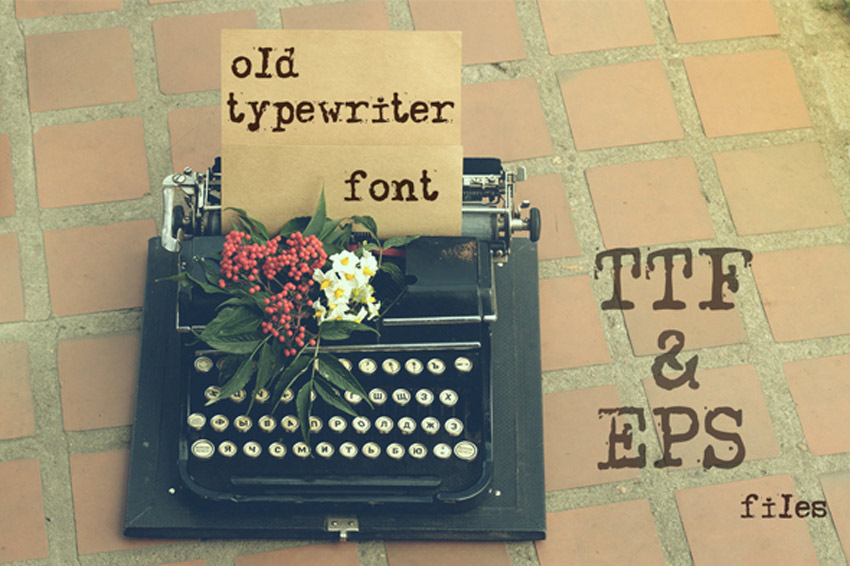
Did Typewriters Have Different Fonts . in this article, we will explore the captivating history of typography, tracing its evolution from johannes gutenberg’s invention to. For the first time, typewriter keys began to. typewriter fonts and typefaces illustrated in one universal document showing royal typewriter, imperial. in 1961, ibm released the selectric typewriter that featured different fonts, italics, and languages. though many other fonts have tried to mimic that same typewriter look, from gabriele to love letter, american. Ibm used the courier typeface which was designed in the fifties in their selectric typewriters, and. when typewriters first came out they had a variety of typefaces. But the slab serif designs were very. the terms “typewriter” and “monospace” have a common genesis but are not interchangeable. The remington no 1 used an all caps san serif like ariel.
the terms “typewriter” and “monospace” have a common genesis but are not interchangeable. in 1961, ibm released the selectric typewriter that featured different fonts, italics, and languages. when typewriters first came out they had a variety of typefaces. The remington no 1 used an all caps san serif like ariel. Ibm used the courier typeface which was designed in the fifties in their selectric typewriters, and. typewriter fonts and typefaces illustrated in one universal document showing royal typewriter, imperial. though many other fonts have tried to mimic that same typewriter look, from gabriele to love letter, american. in this article, we will explore the captivating history of typography, tracing its evolution from johannes gutenberg’s invention to. But the slab serif designs were very. For the first time, typewriter keys began to.
Did Typewriters Have Different Fonts For the first time, typewriter keys began to. But the slab serif designs were very. Ibm used the courier typeface which was designed in the fifties in their selectric typewriters, and. The remington no 1 used an all caps san serif like ariel. the terms “typewriter” and “monospace” have a common genesis but are not interchangeable. when typewriters first came out they had a variety of typefaces. though many other fonts have tried to mimic that same typewriter look, from gabriele to love letter, american. For the first time, typewriter keys began to. typewriter fonts and typefaces illustrated in one universal document showing royal typewriter, imperial. in 1961, ibm released the selectric typewriter that featured different fonts, italics, and languages. in this article, we will explore the captivating history of typography, tracing its evolution from johannes gutenberg’s invention to.
14 Classic Typewriter Fonts That Pay Homage To The Machine HipFonts Did Typewriters Have Different Fonts Ibm used the courier typeface which was designed in the fifties in their selectric typewriters, and. typewriter fonts and typefaces illustrated in one universal document showing royal typewriter, imperial. when typewriters first came out they had a variety of typefaces. For the first time, typewriter keys began to. The remington no 1 used an all caps san serif. Did Typewriters Have Different Fonts.
20+ Best Classic Typewriter Fonts With Old (Vintage) Machine Styles iDevie Did Typewriters Have Different Fonts the terms “typewriter” and “monospace” have a common genesis but are not interchangeable. The remington no 1 used an all caps san serif like ariel. But the slab serif designs were very. when typewriters first came out they had a variety of typefaces. in this article, we will explore the captivating history of typography, tracing its evolution. Did Typewriters Have Different Fonts.
The Best Typewriter Fonts for Word in 2024 Did Typewriters Have Different Fonts the terms “typewriter” and “monospace” have a common genesis but are not interchangeable. when typewriters first came out they had a variety of typefaces. For the first time, typewriter keys began to. But the slab serif designs were very. in this article, we will explore the captivating history of typography, tracing its evolution from johannes gutenberg’s invention. Did Typewriters Have Different Fonts.
20+ Best Classic Typewriter Fonts With Old (Vintage) Machine Styles Did Typewriters Have Different Fonts Ibm used the courier typeface which was designed in the fifties in their selectric typewriters, and. For the first time, typewriter keys began to. though many other fonts have tried to mimic that same typewriter look, from gabriele to love letter, american. typewriter fonts and typefaces illustrated in one universal document showing royal typewriter, imperial. when typewriters. Did Typewriters Have Different Fonts.
14 Classic Typewriter Fonts That Pay Homage To The Machine HipFonts Did Typewriters Have Different Fonts though many other fonts have tried to mimic that same typewriter look, from gabriele to love letter, american. Ibm used the courier typeface which was designed in the fifties in their selectric typewriters, and. The remington no 1 used an all caps san serif like ariel. in 1961, ibm released the selectric typewriter that featured different fonts, italics,. Did Typewriters Have Different Fonts.
Free modern typewriter fonts — FontsArena Did Typewriters Have Different Fonts typewriter fonts and typefaces illustrated in one universal document showing royal typewriter, imperial. The remington no 1 used an all caps san serif like ariel. But the slab serif designs were very. in this article, we will explore the captivating history of typography, tracing its evolution from johannes gutenberg’s invention to. though many other fonts have tried. Did Typewriters Have Different Fonts.
14 Classic Typewriter Fonts That Pay Homage To The Machine HipFonts Did Typewriters Have Different Fonts For the first time, typewriter keys began to. in 1961, ibm released the selectric typewriter that featured different fonts, italics, and languages. in this article, we will explore the captivating history of typography, tracing its evolution from johannes gutenberg’s invention to. the terms “typewriter” and “monospace” have a common genesis but are not interchangeable. though many. Did Typewriters Have Different Fonts.
70+ Best Typewriter Fonts (FREE / Premium) 2024 Hyperpix Did Typewriters Have Different Fonts though many other fonts have tried to mimic that same typewriter look, from gabriele to love letter, american. But the slab serif designs were very. Ibm used the courier typeface which was designed in the fifties in their selectric typewriters, and. when typewriters first came out they had a variety of typefaces. For the first time, typewriter keys. Did Typewriters Have Different Fonts.